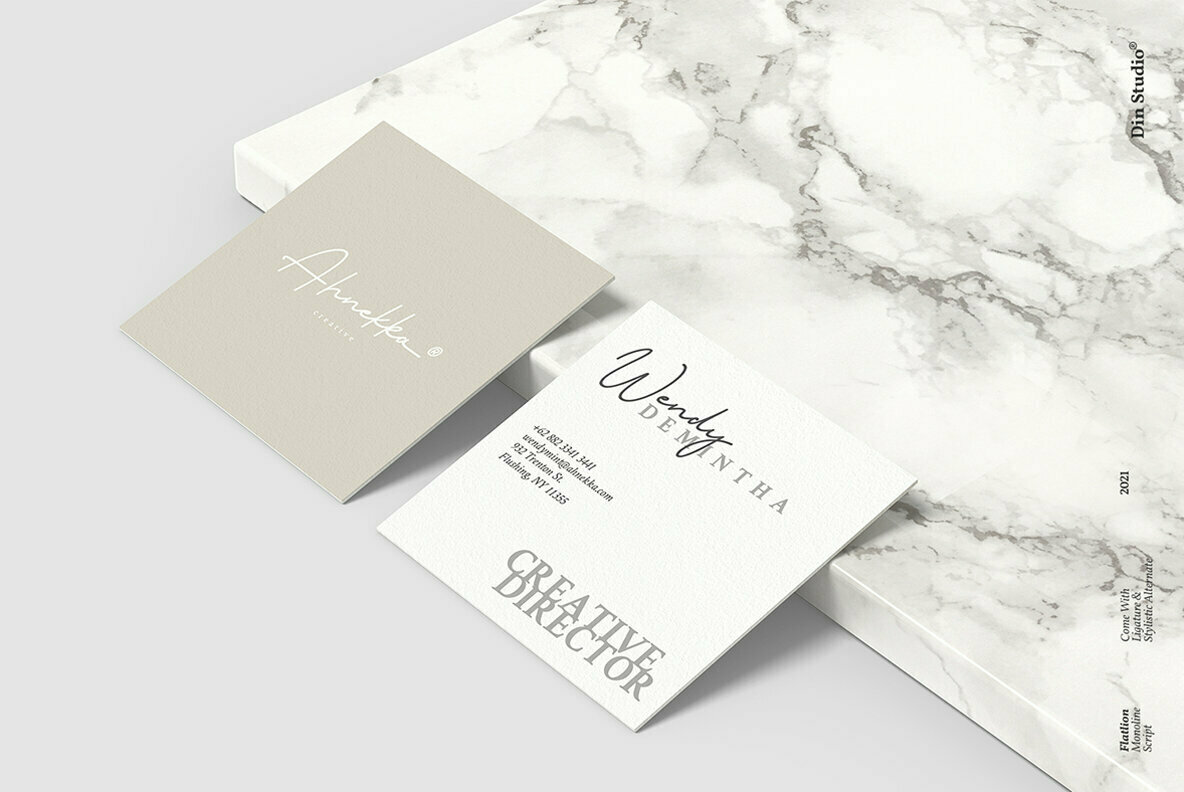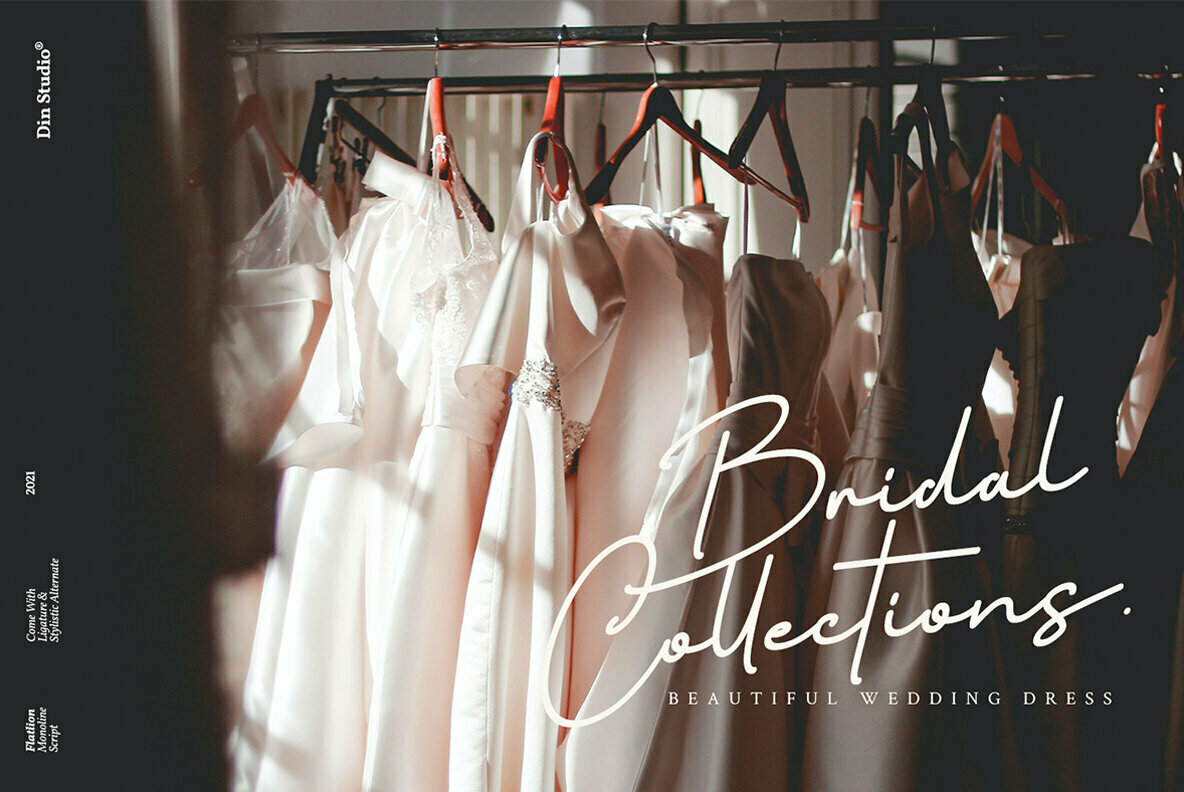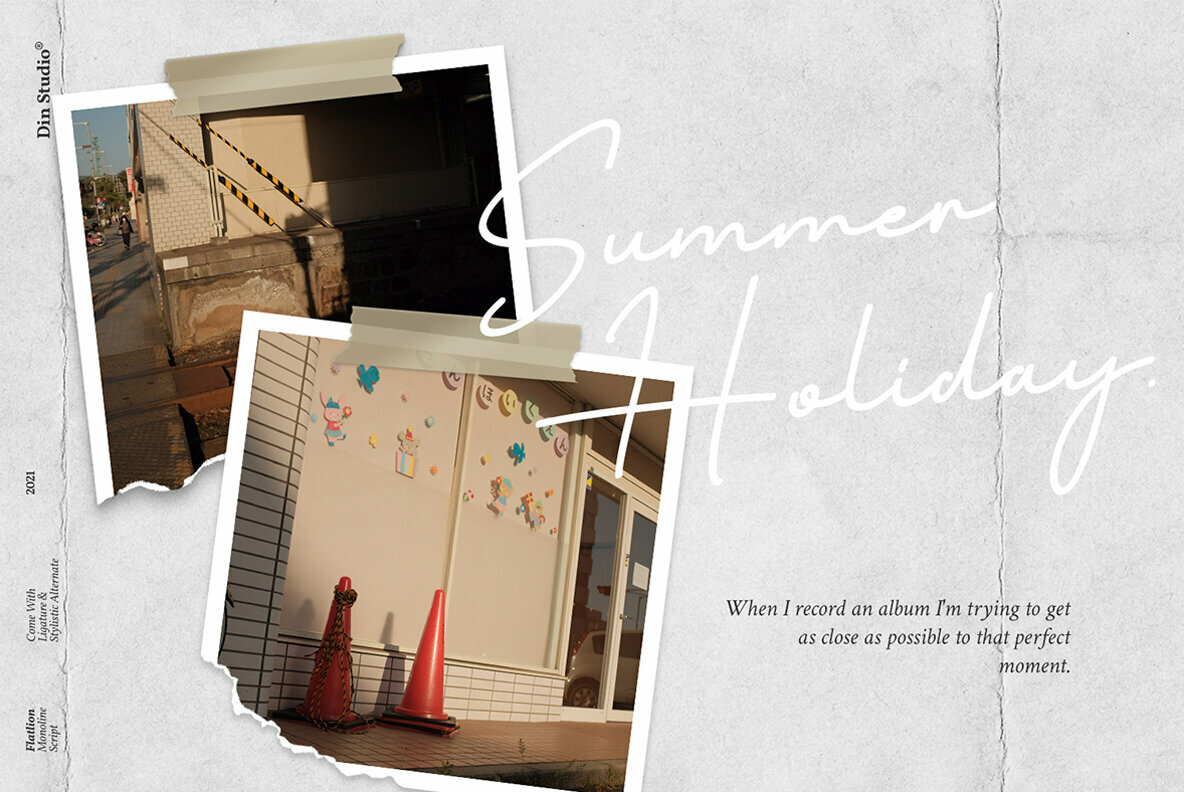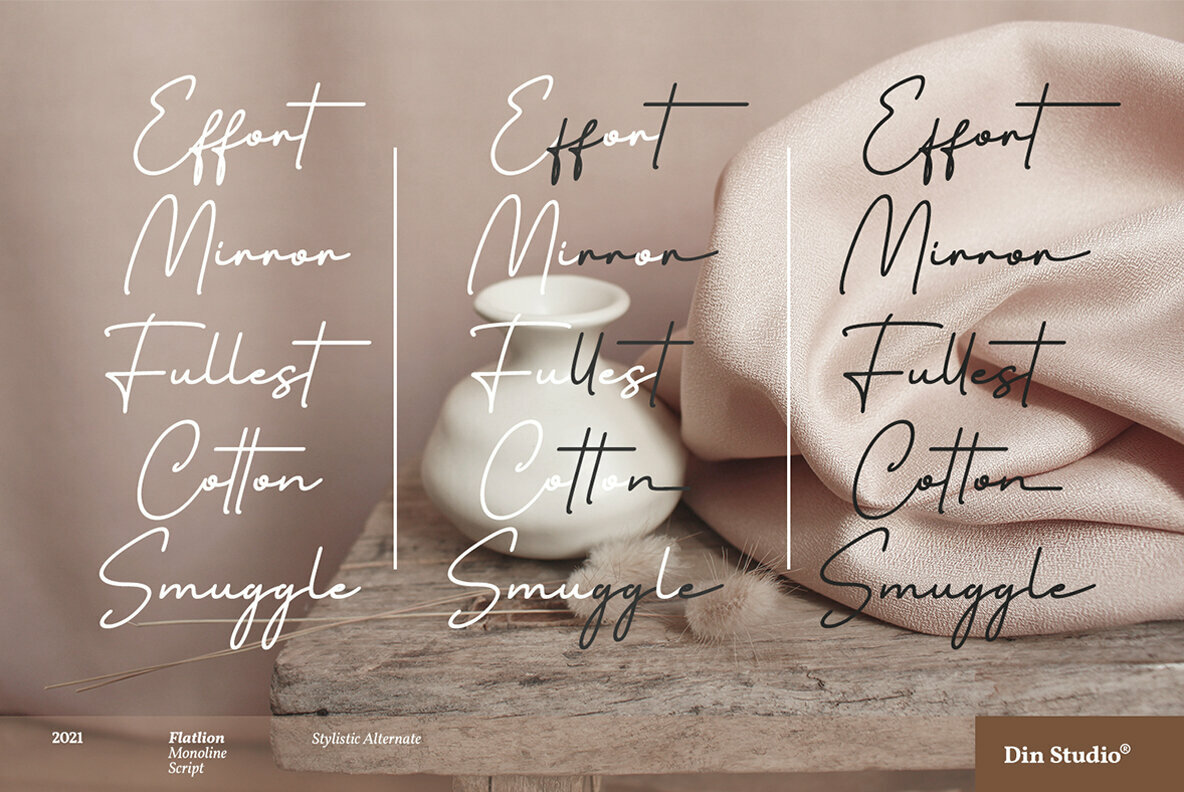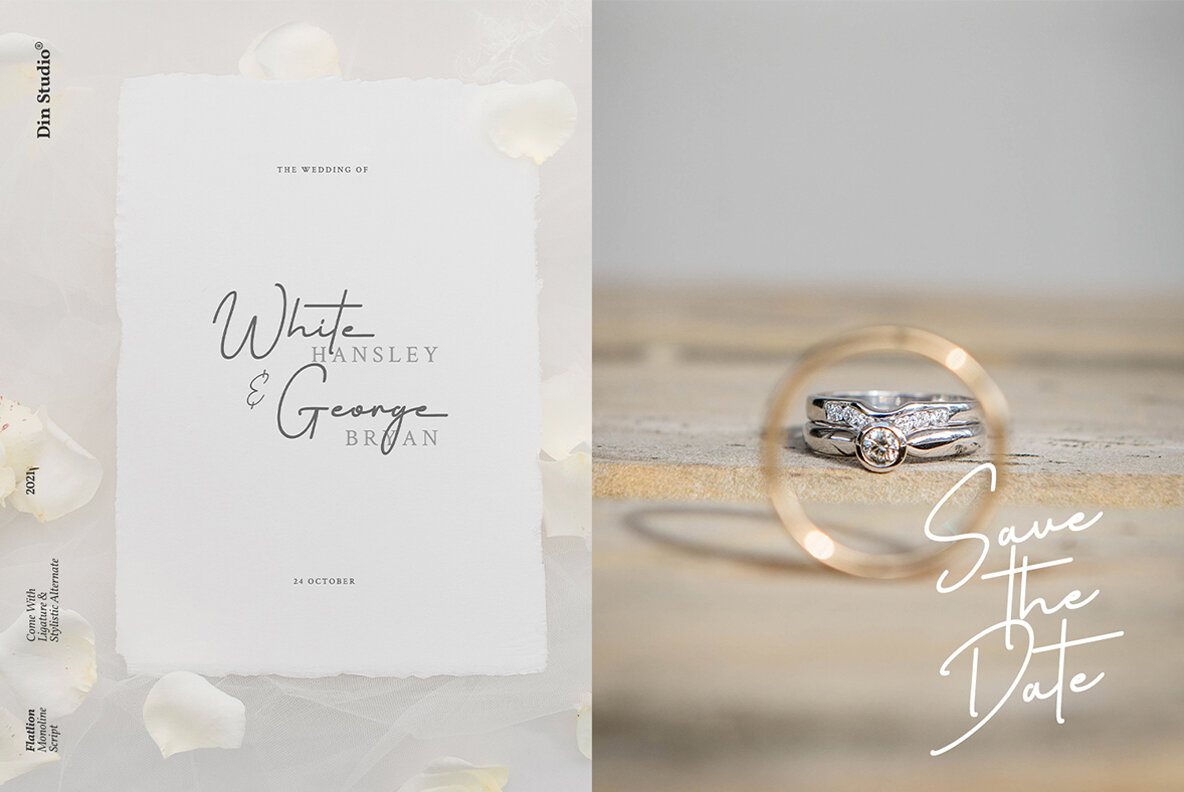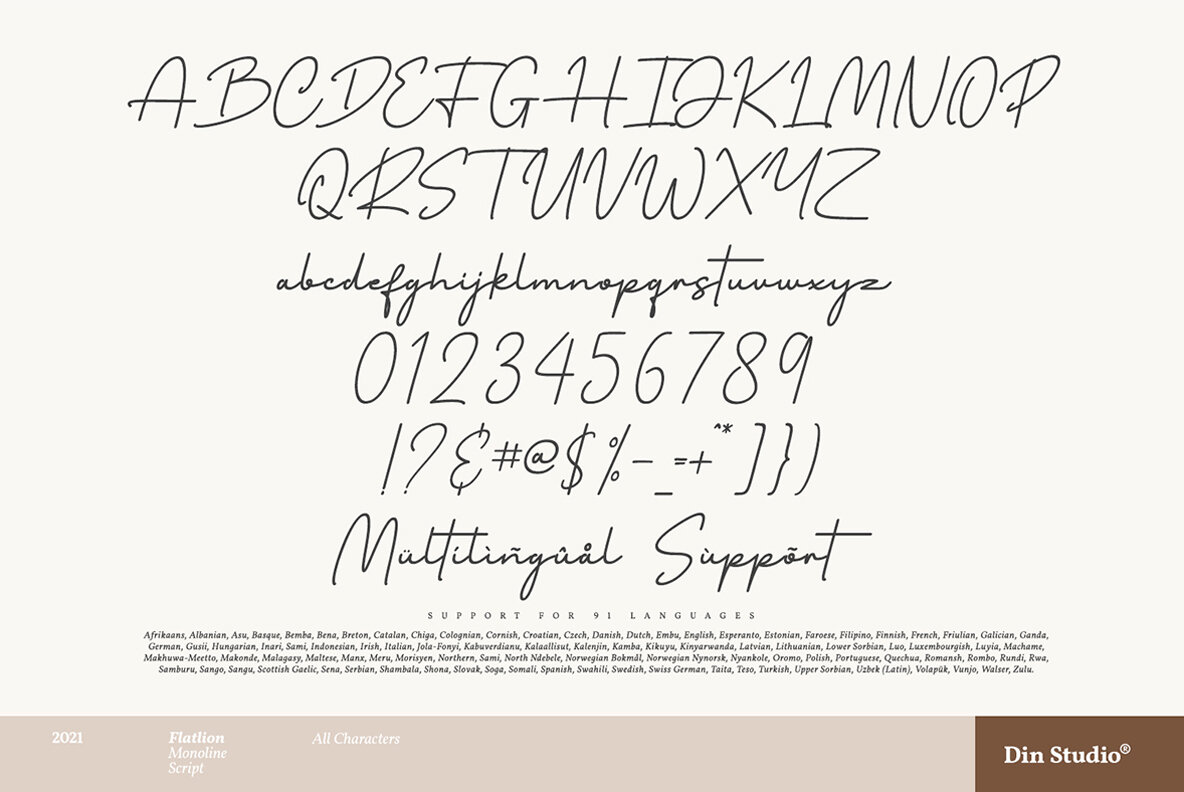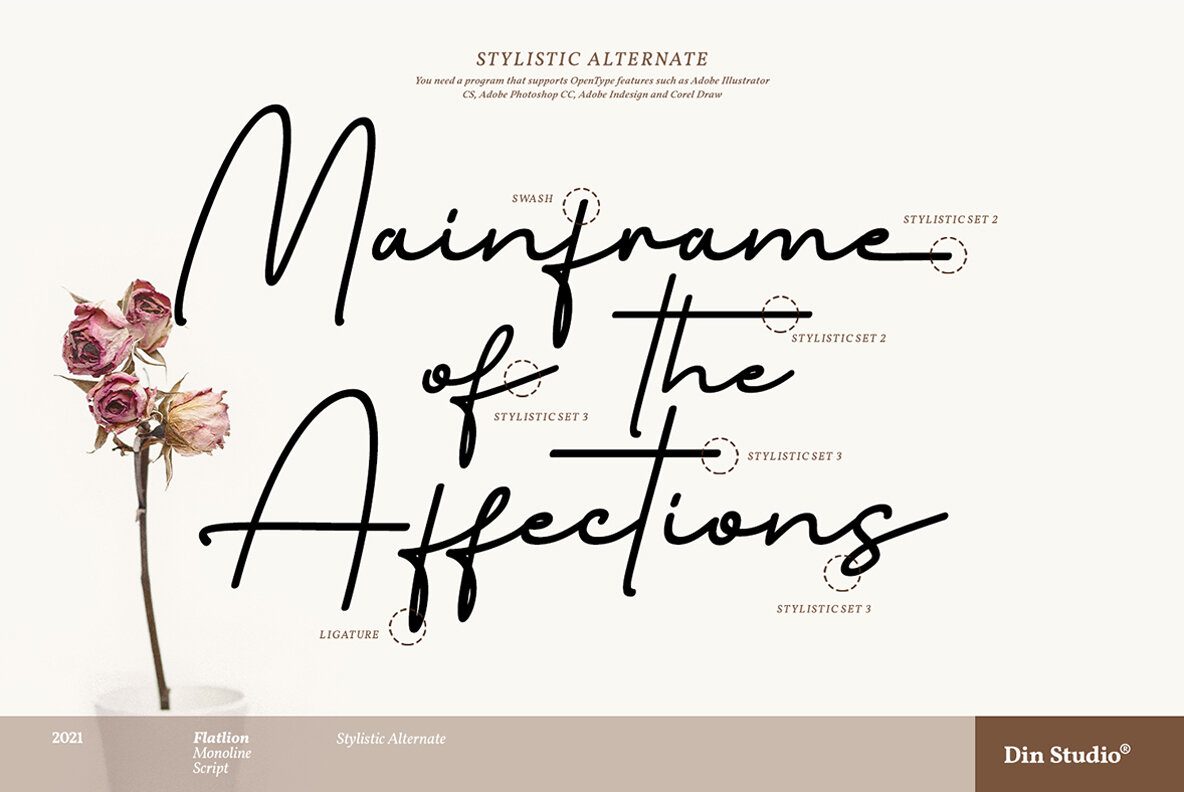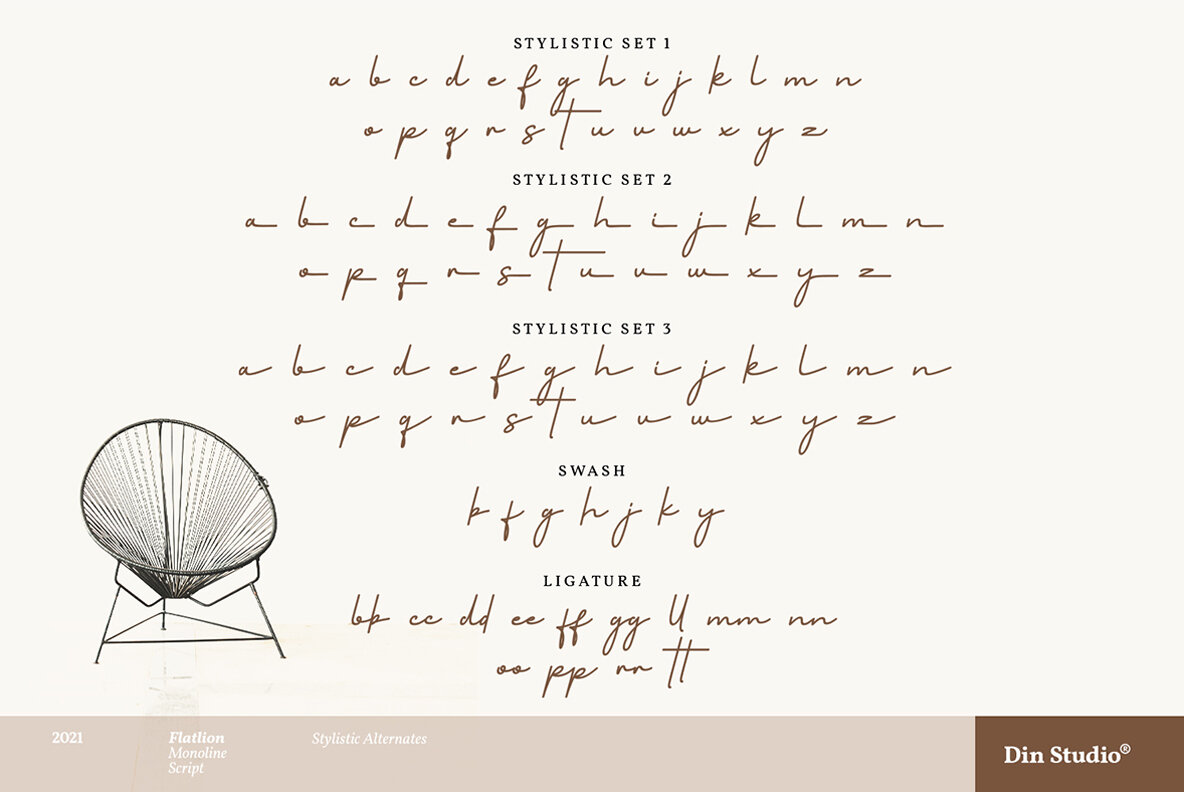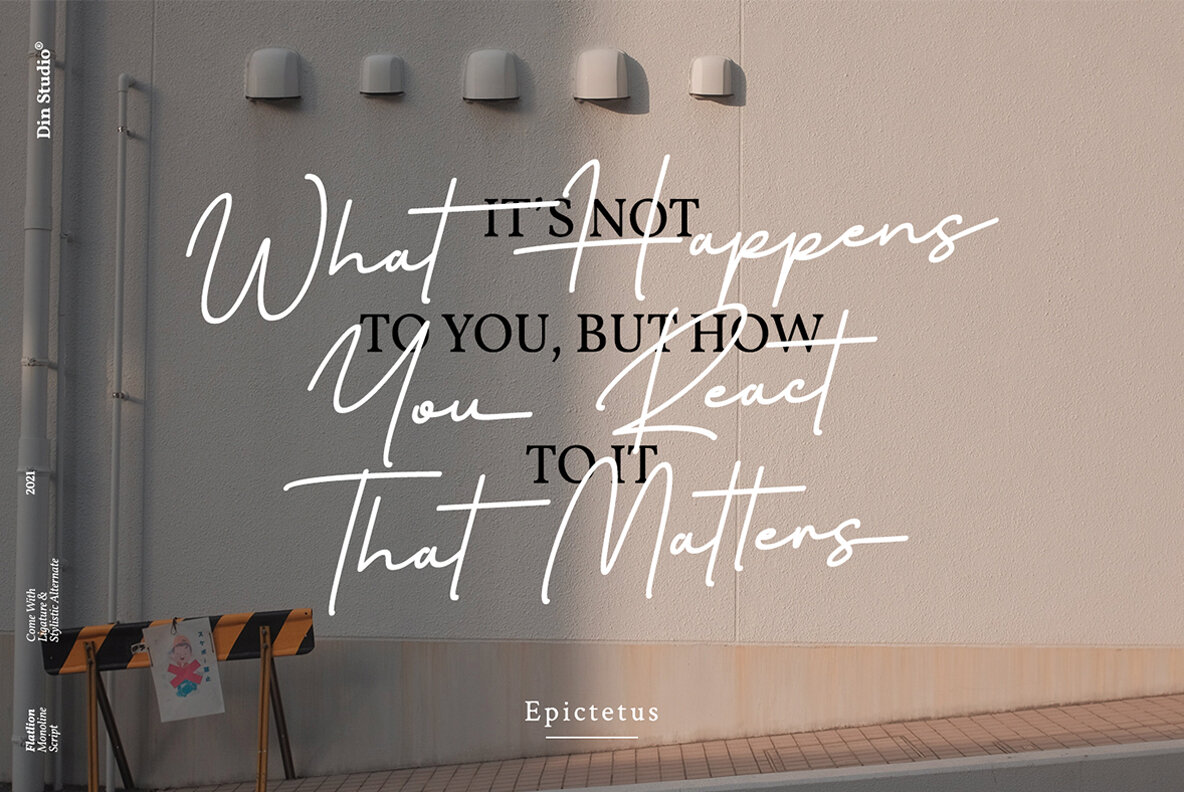
Flatlion Font
Flatlion
Flatlion by Din Studio offers a sophisticated script typeface that lends an intriguing flair to an array of projects. Its elegant style is well-suited for enhancing your website, social media branding, Pinterest banners, and printed products. This font elevates visual communication, making it an ideal choice for various creative endeavors. This script font combines classical elegance with modern practicality, offering a seamless experience across digital and print media.Flatlion: Elegant Script for Versatile Design